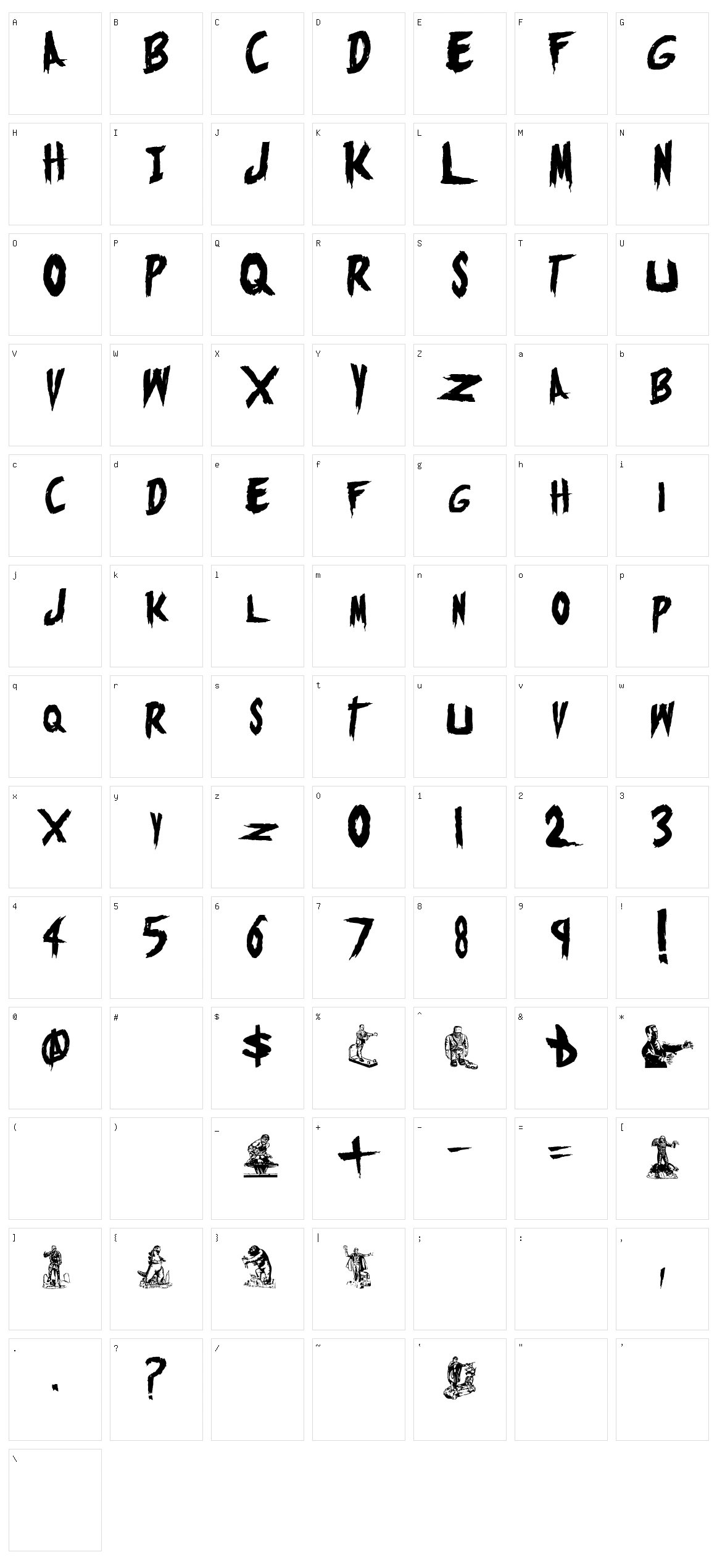
My finest effort to date...this is my final version of this font,
dedicated to the late, great Mr. Karloff and to those who love him.
The font does contain some punctuation: !$&,.-+=?
as well as the following dingbats, taken from black-and-white
illustrations advertising those ultra-cool Aurora Famous Monsters
model kits! If I close my eyes tightly and concentrate, I can
still see the Frankenstein Monster's glow-in-the-dark hands,
can't you?
% - Frankenstein
* - Frankenstein Amok
[ - Creature From Black Lagoon
] - Mummy
^ - Big Frankenstein
_ - Hunchback
` - Dracula
{ - Godzilla
| - Phantom of the Opera
} - King Kong